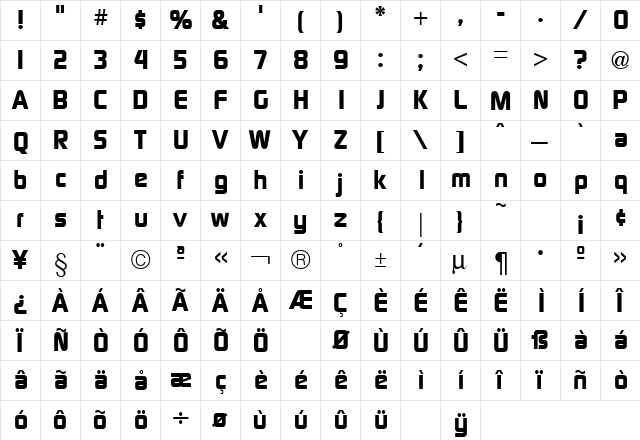
Sol Heavy Regular
Design Context for Sol Heavy Typeface
Sol Heavy offers clean, dependable letterforms without strong stylistic allegiance, making it a practical choice for designers who need flexibility.